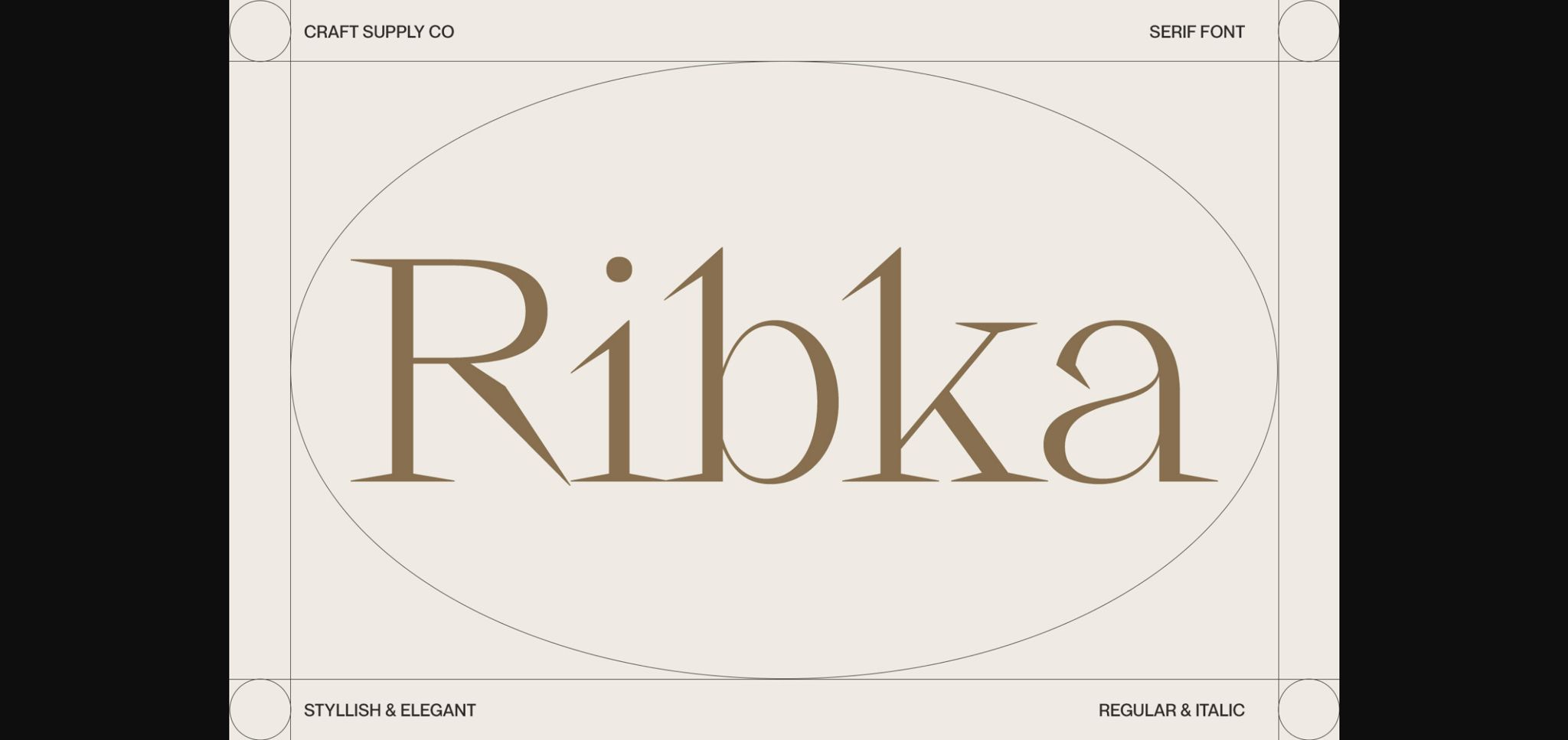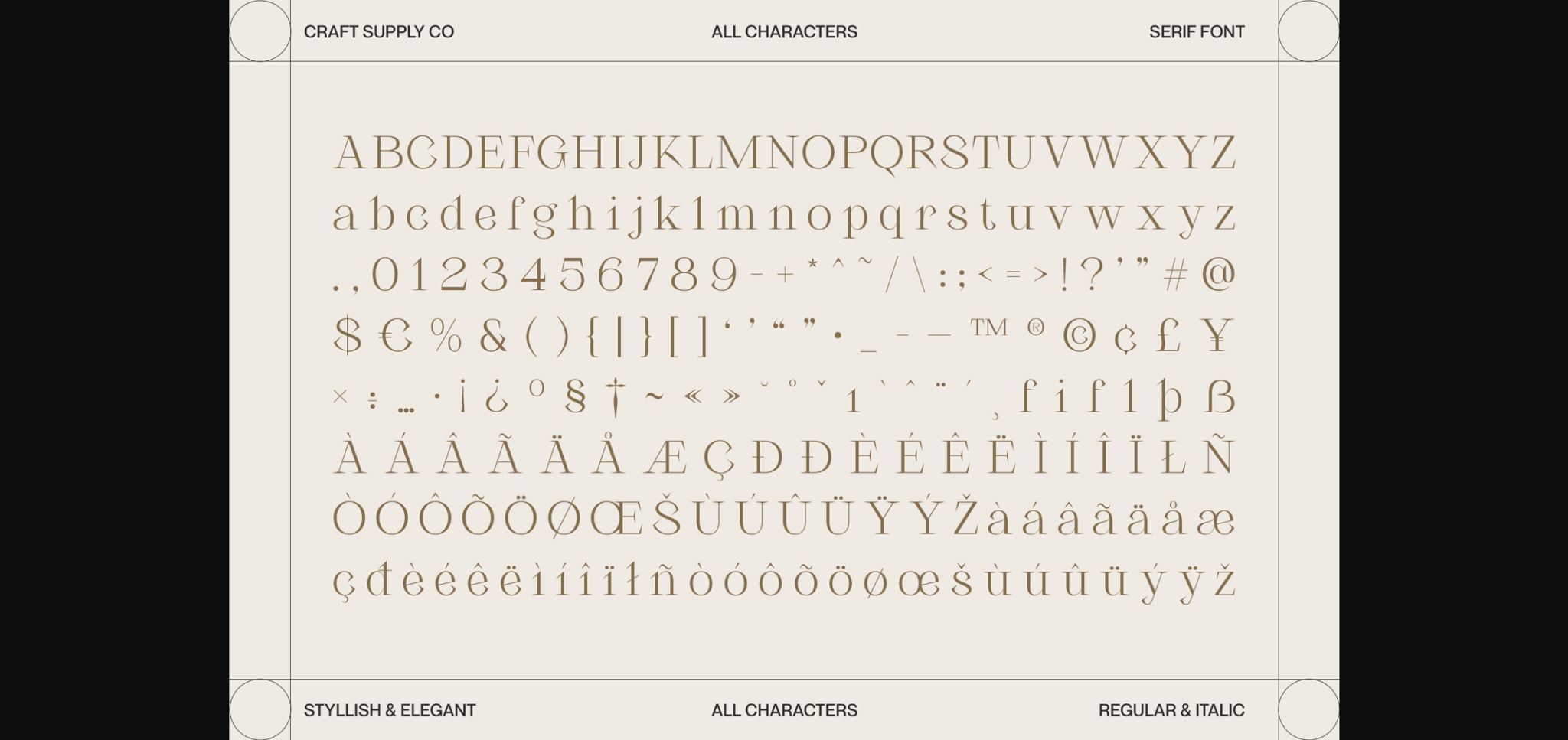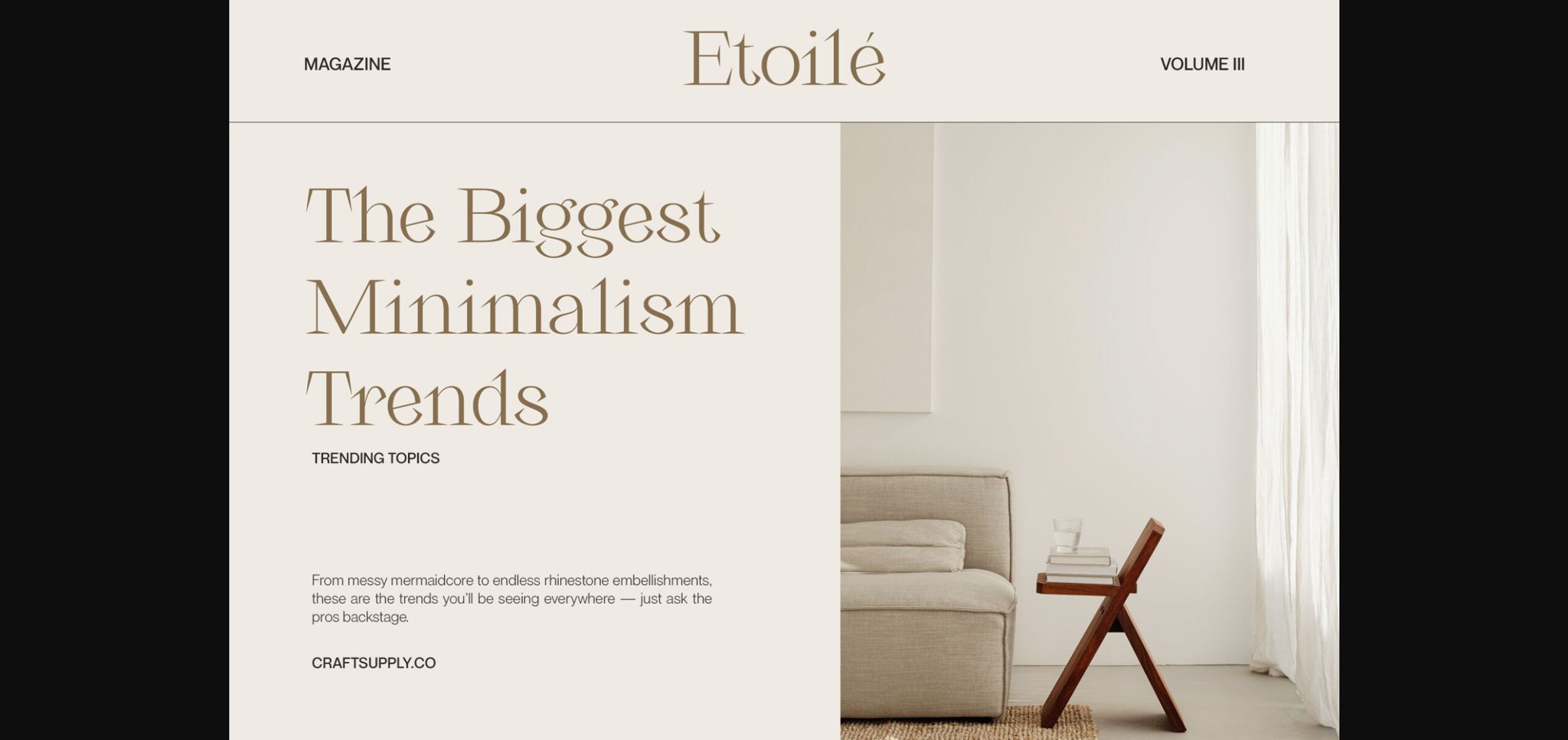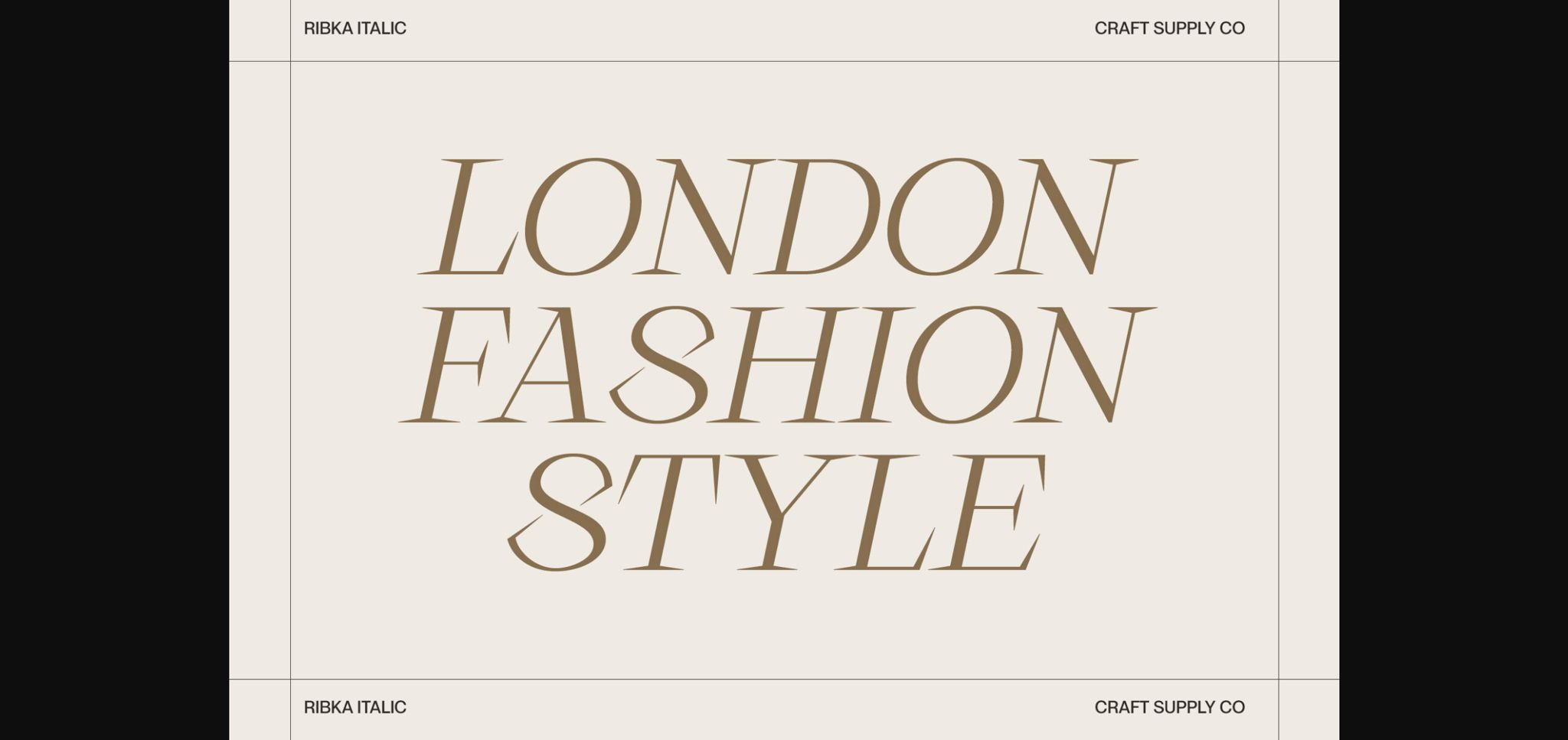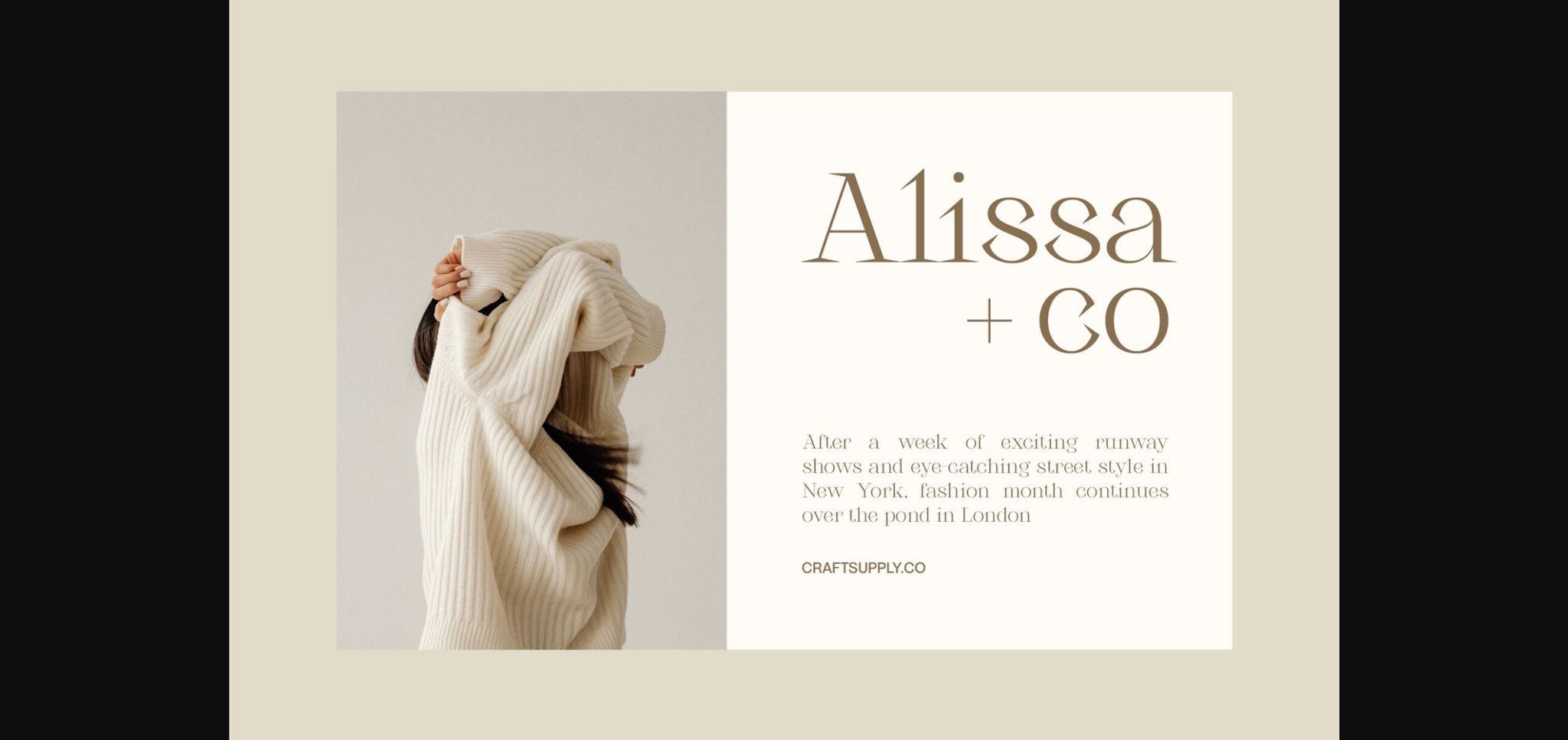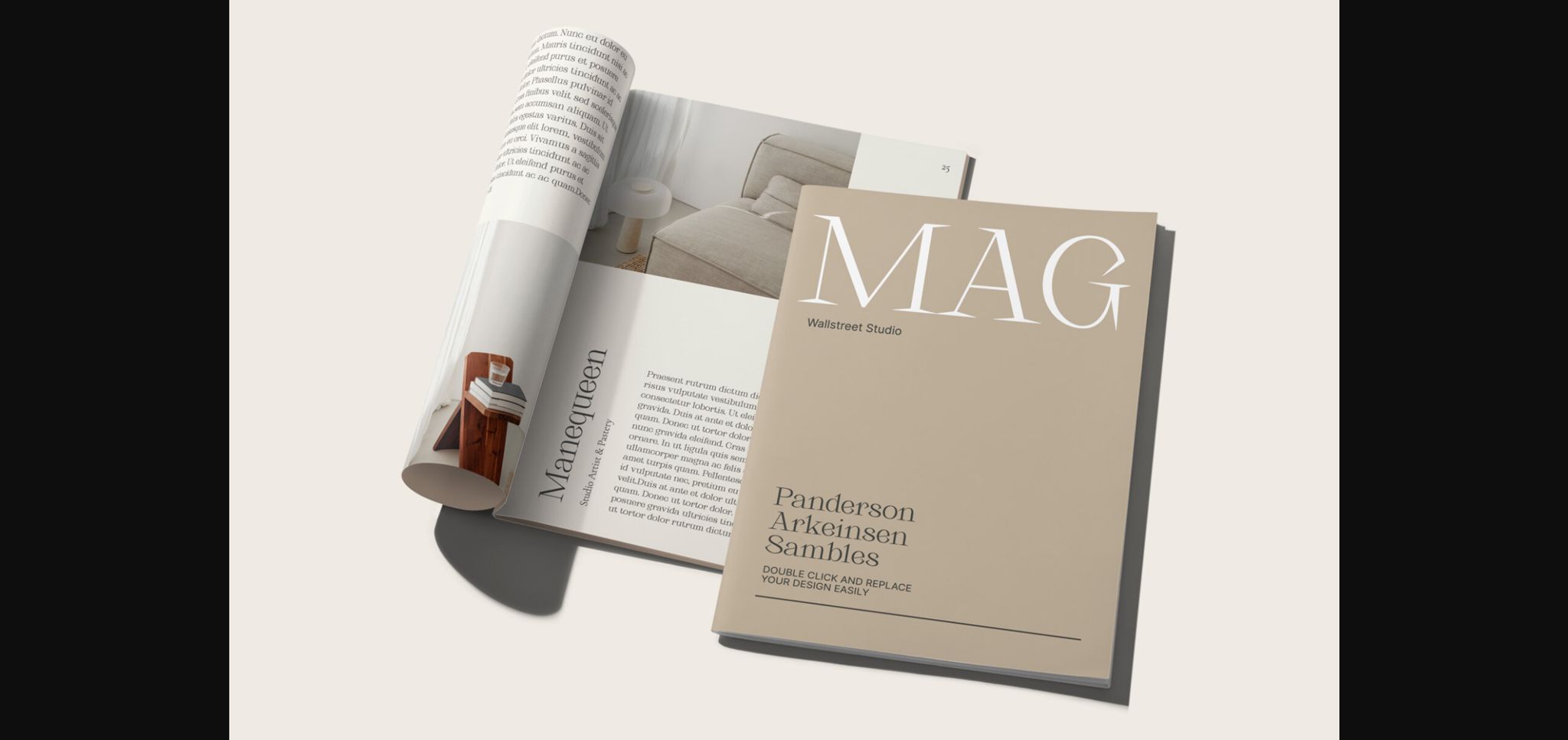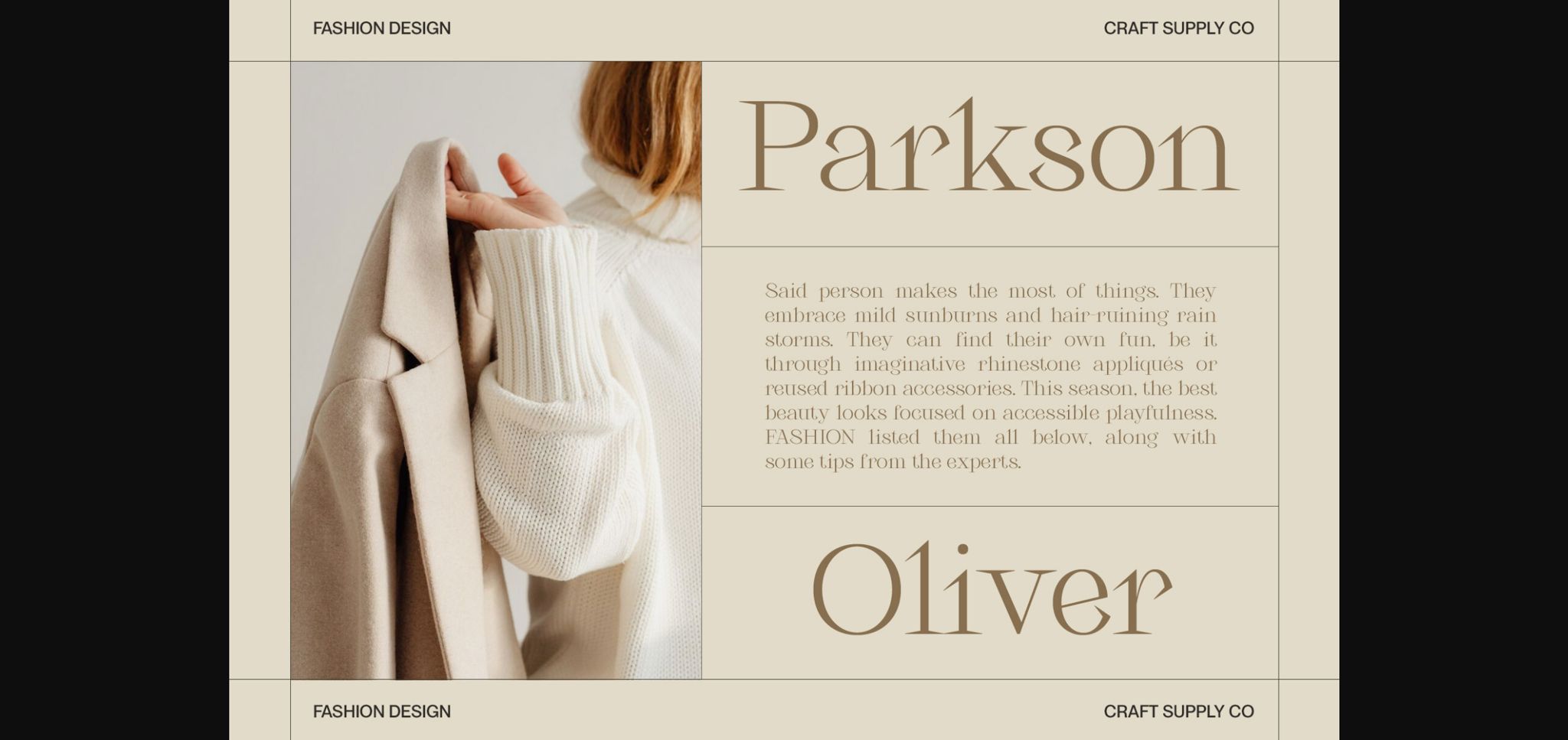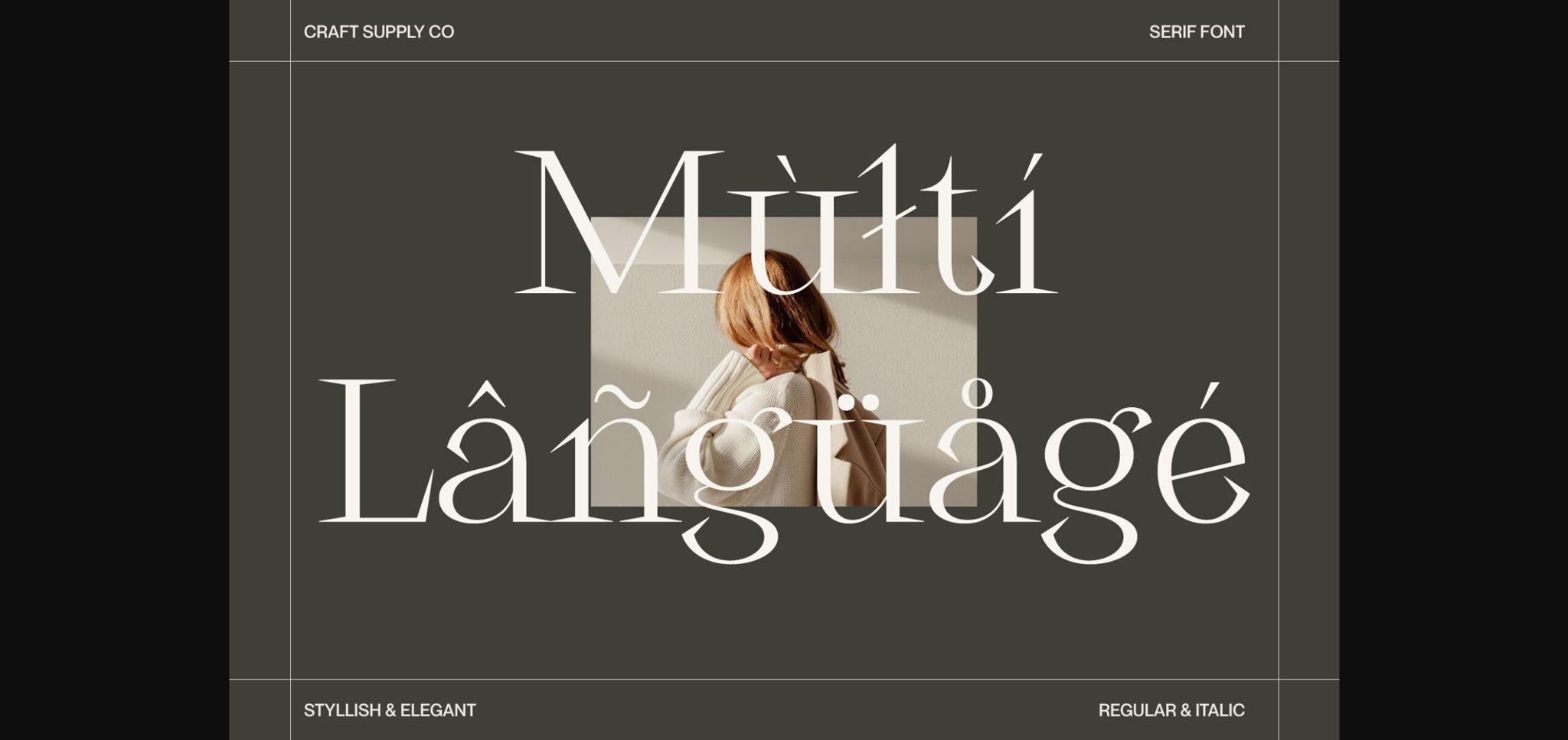
Ribka Font
About Ribka Font
Ribka – The Elegant Pointed Serif Font harmoniously blends the classic appeal of sharp serifs with an exquisite sense of sophistication. This typeface radiates timeless charm, making it an excellent choice for projects that seek a touch of enduring beauty and grace.
Whether you’re creating invitations, developing branding materials, or curating editorial content, Ribka seamlessly instills a sense of opulence and distinction into your work. With its precise and pointed serifs, Ribka stands as an emblem of timeless sophistication in the realm of typography, elevating any project with an essence of refinement and exclusivity